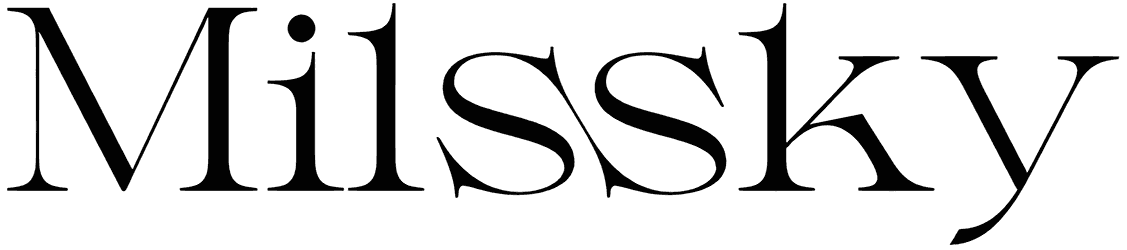
Milssky Font
You can count on a fashion font like this one to create a chic and luxurious visual for your projects. The Milssky font has classic and noble characters that can be used for varied formal and informal designs like a special sell event flyer. Apply this ligature serif font to your intended design and show off your creative skills.